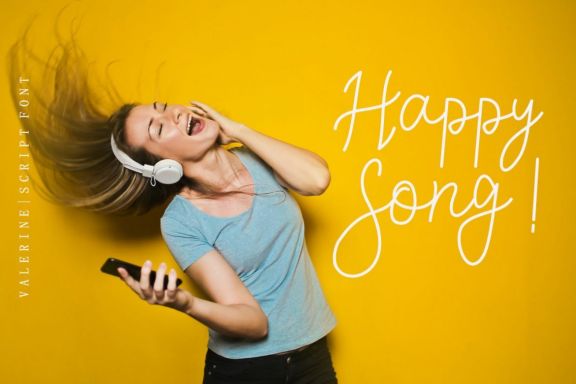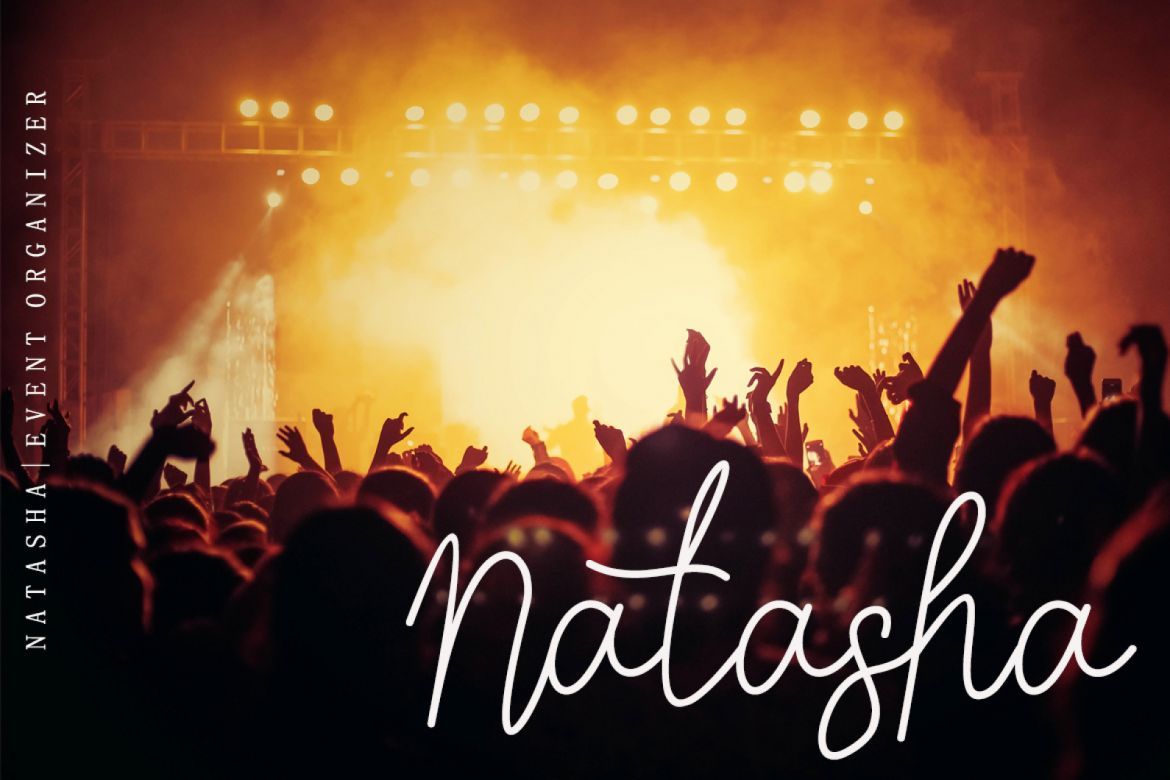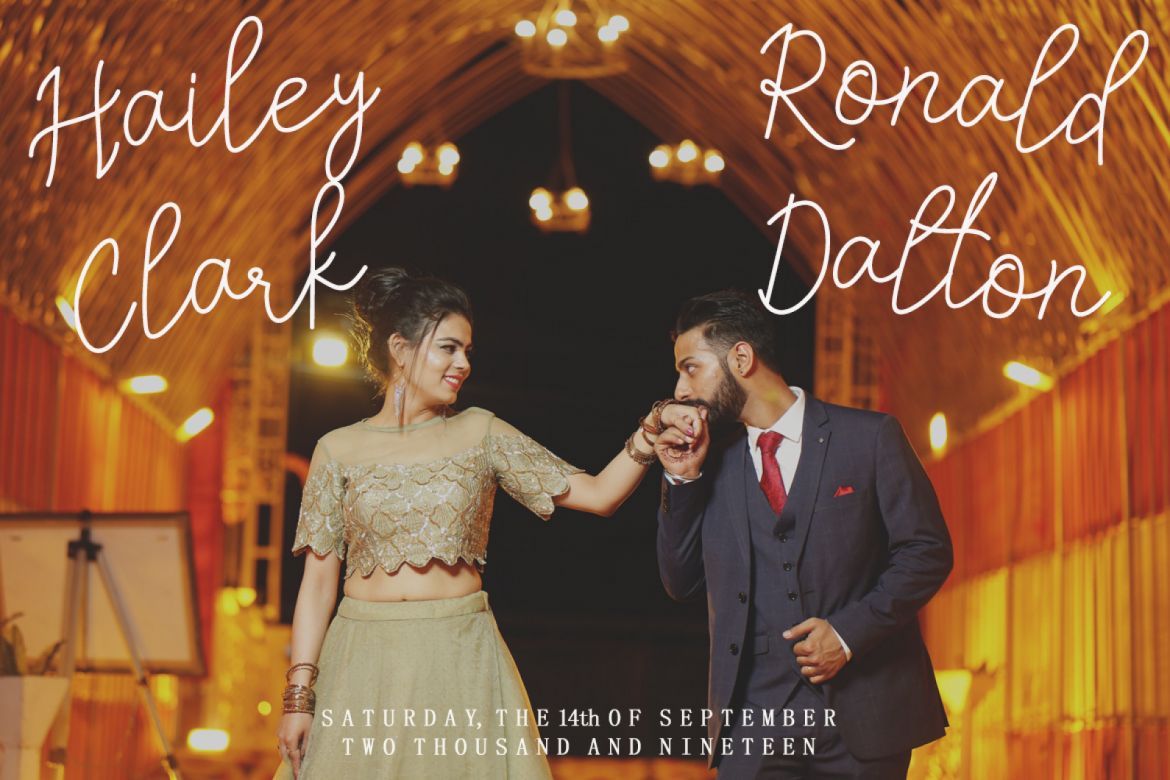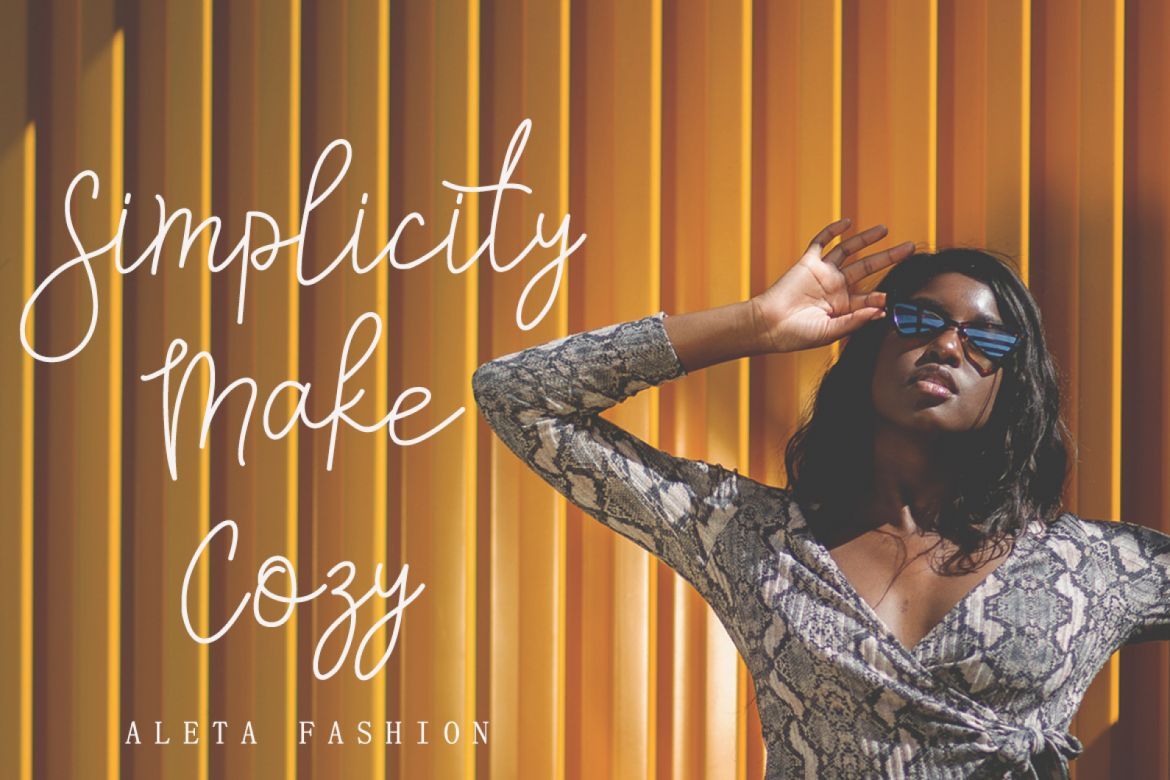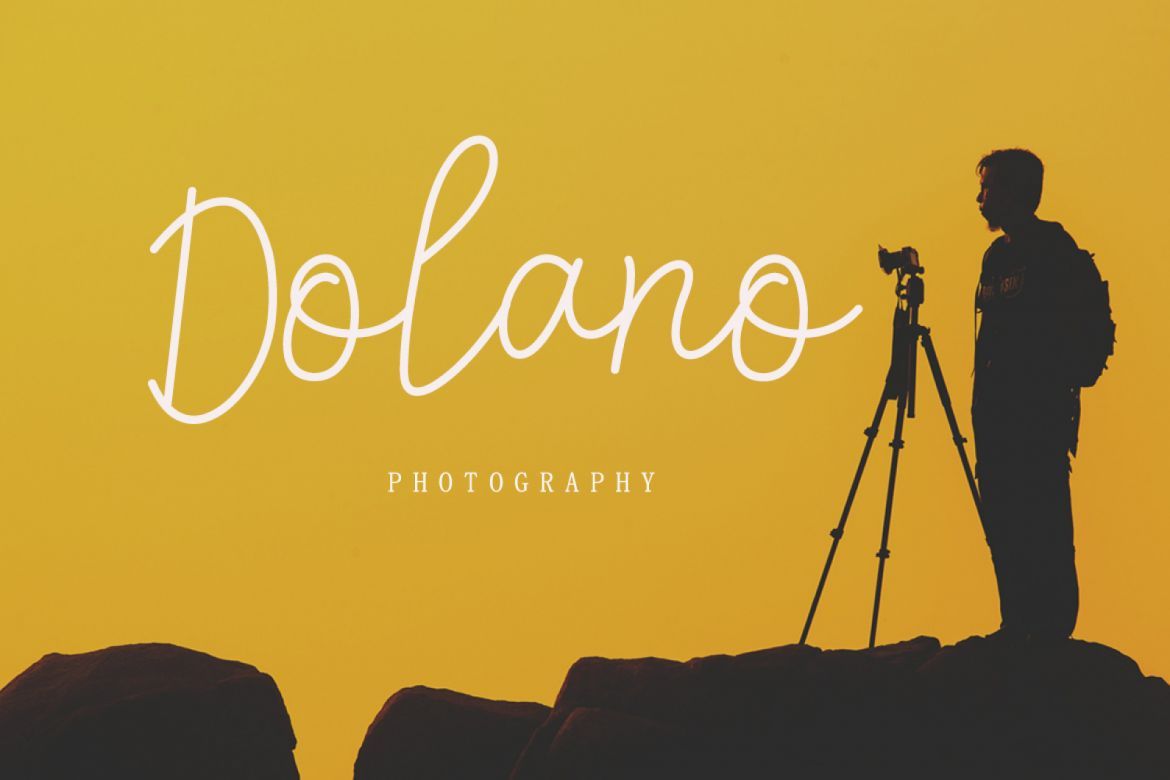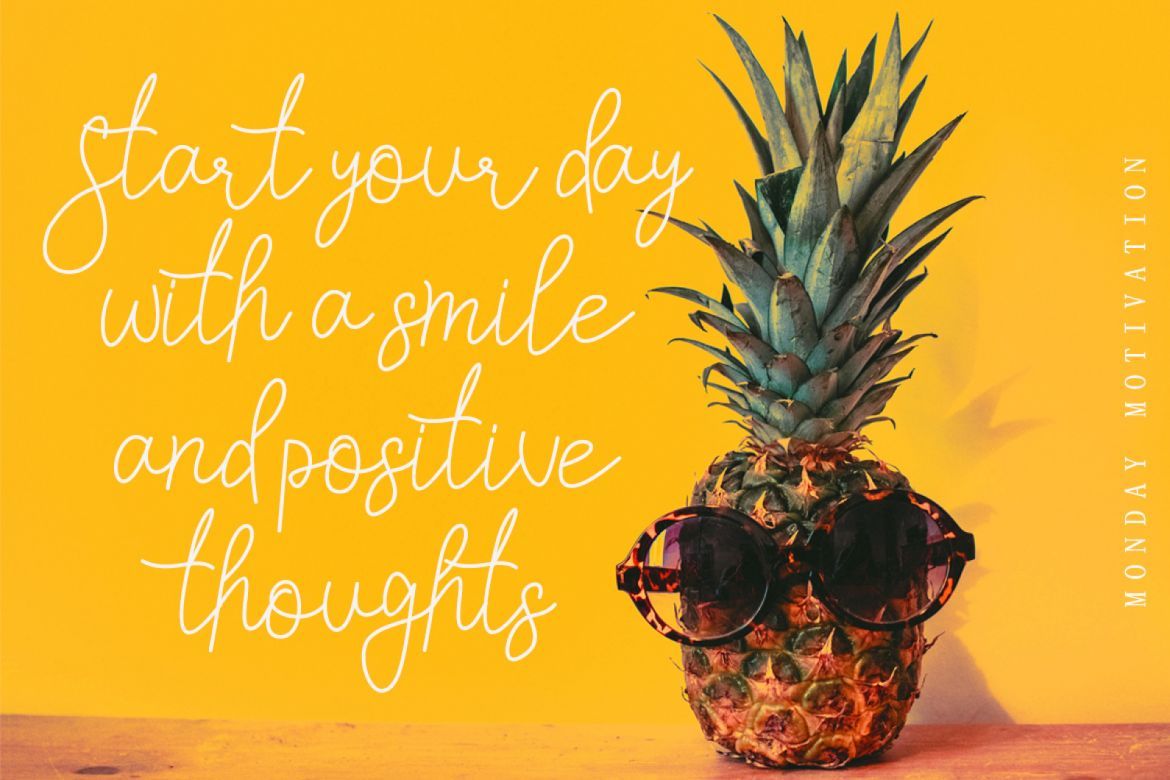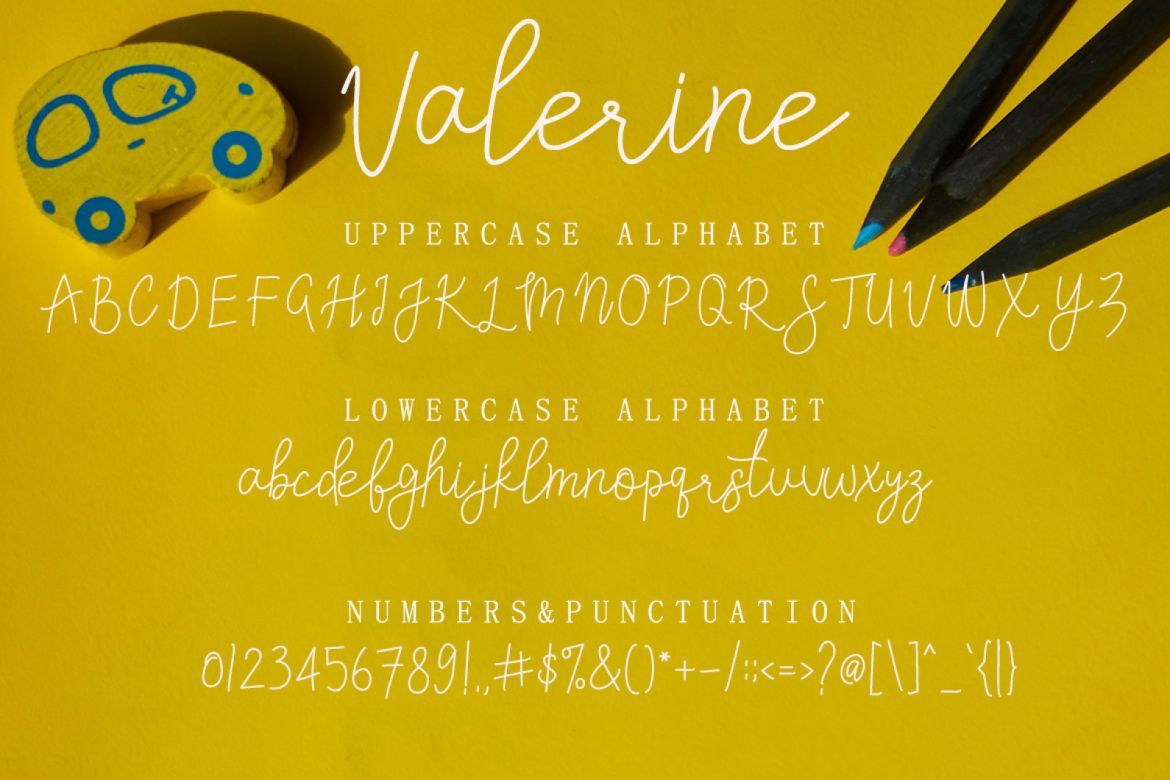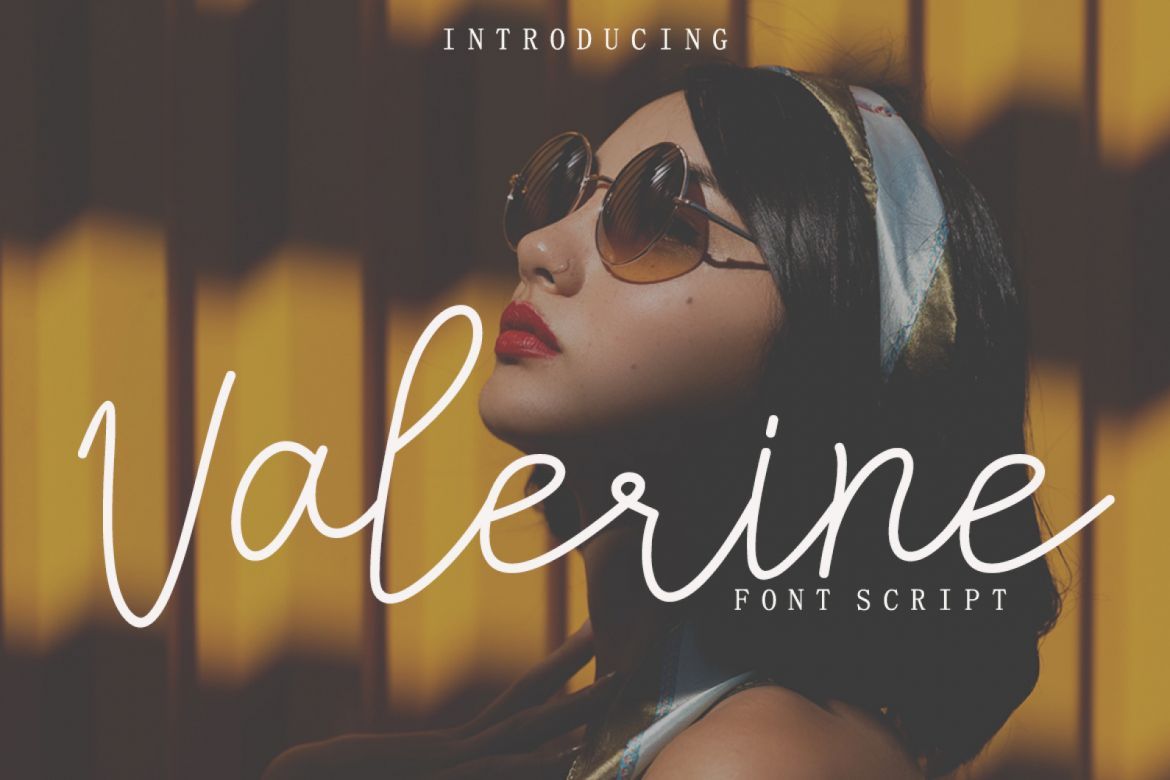
Valerine Font Script
Valerine is a simple, yet unique handwritten typeface, with an elegant and beautiful look. Sandwell will look perfect for elegant logos, wedding stationery, posters, quotes, short text, branding, web, graphic design, and any other projects requiring a handwritten.